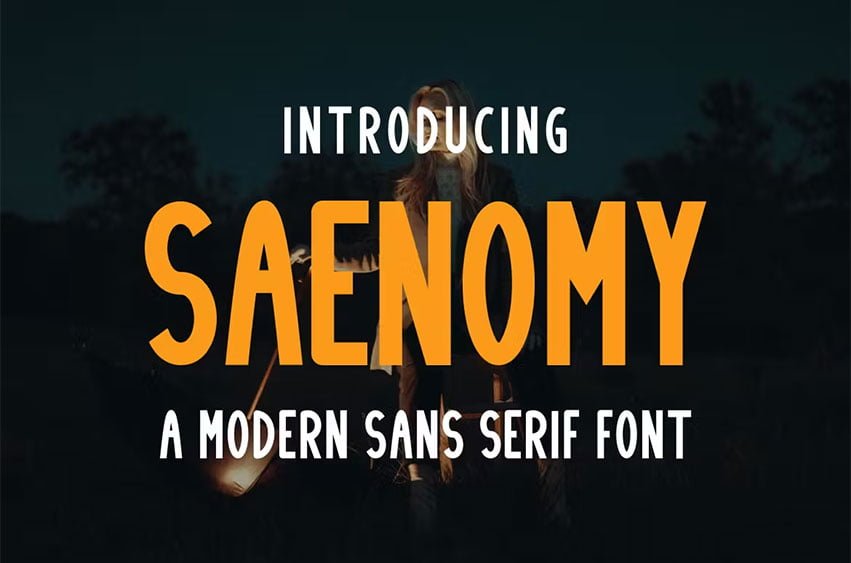
Sainomy Font is a modern and authentic font. Saenomy is perfect for both professional and branding needs of a product. This font is suitable for any branding project like quotes, logo, blog header, poster, banding, letter, invitation, stationery, etc… Designed as a versatile and flexible that can be used on a range of projects and mediums. outstanding in a wide range of contexts.